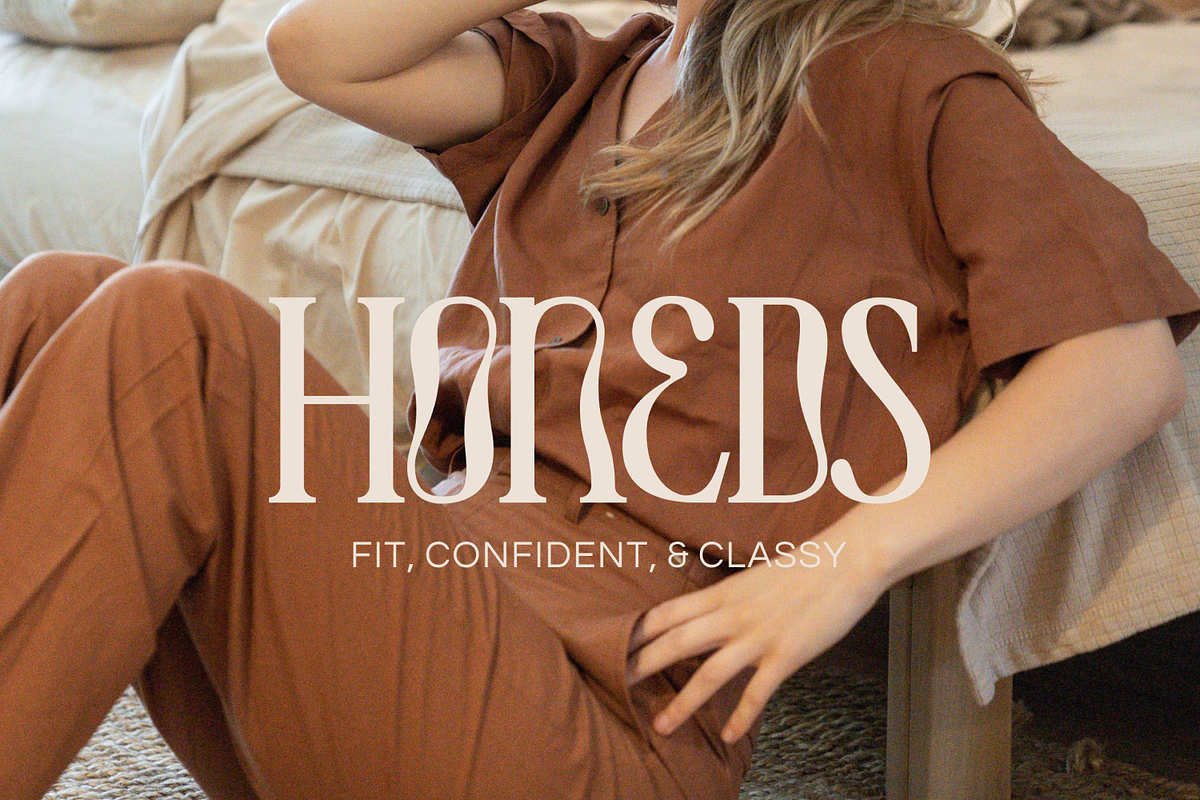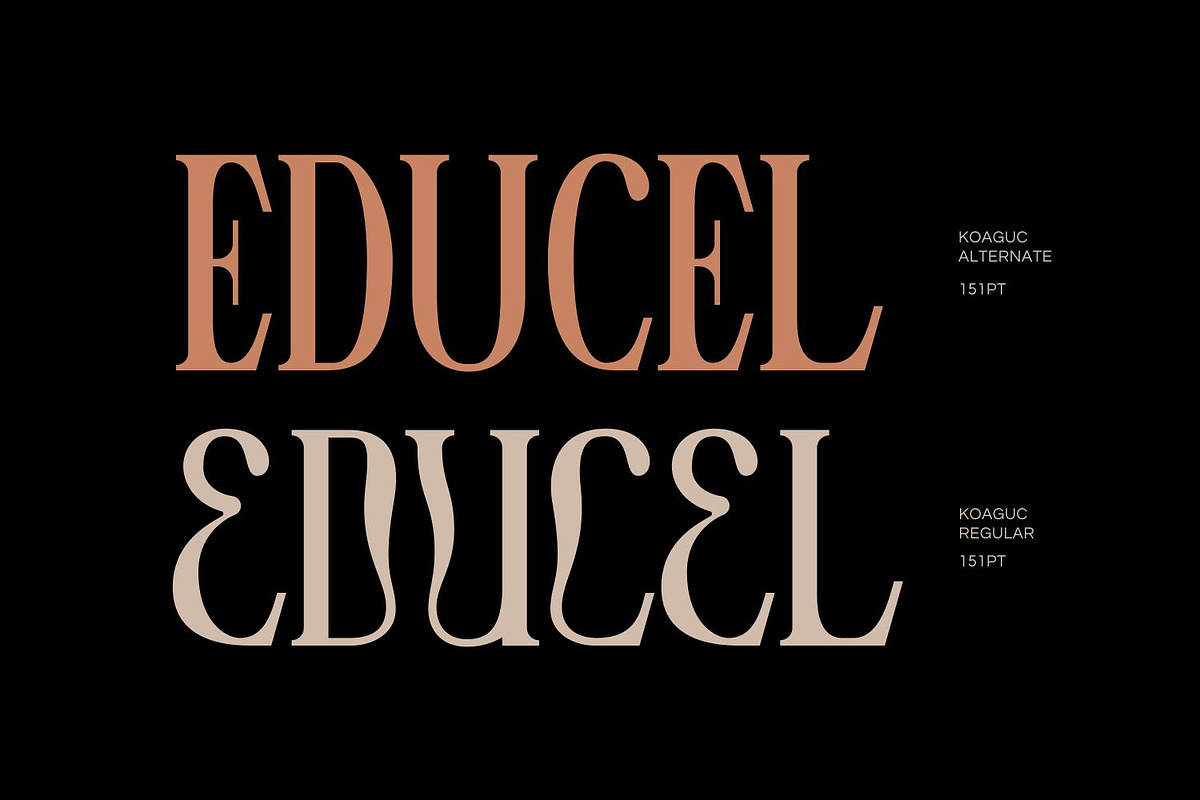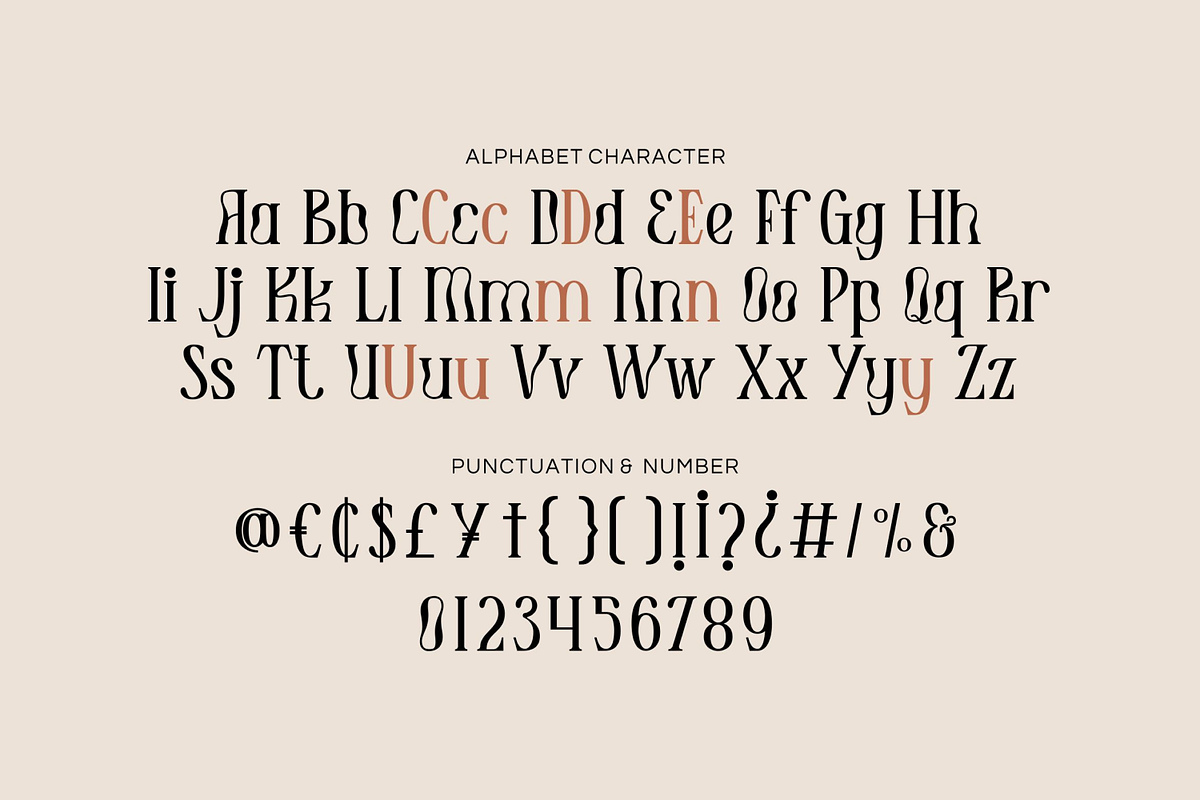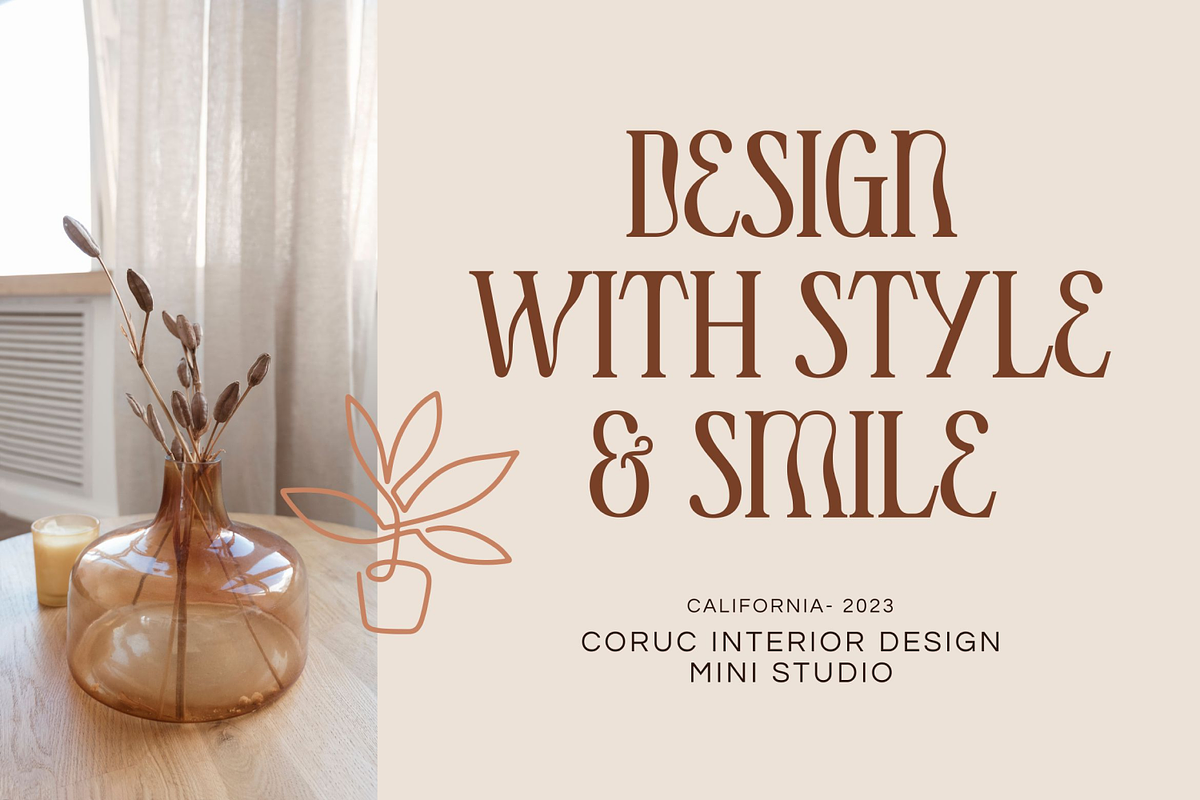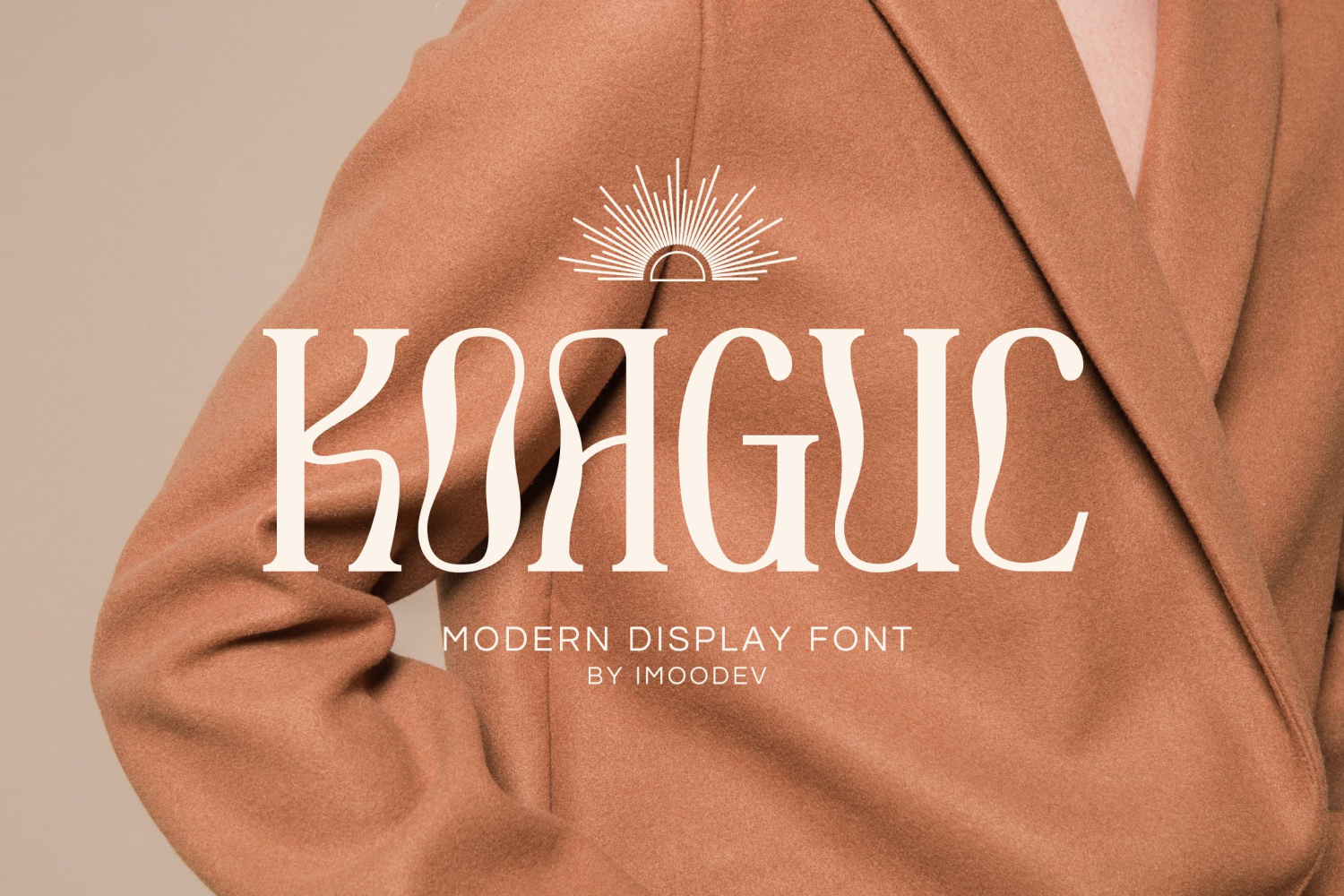
Koaguc - Beautiful Serif Font
Koaguc is a beautiful serif font, this typeface has smooth curves and a visual style a can embodies charm and elegance in every lettering, making your work look stunning and attractive.
A versatile font that works in both large and small sizes, suitable for a wide variety of projects such as a display for headings, logos, invitations, branding, magazine, photography, card, product packaging, product mockup, mugs, posters, labels, signatures, editorials, art deco, any type of advertising purpose.
These creative fonts are perfect for business fonts such as personal projects, studios, corporate, company, creative agency, industrial, etc.